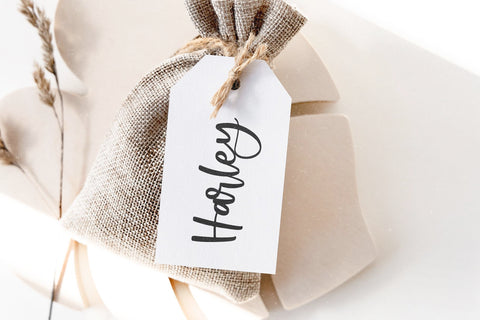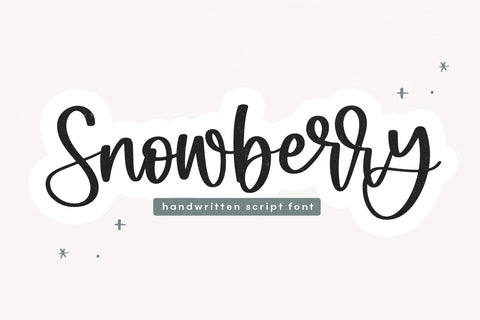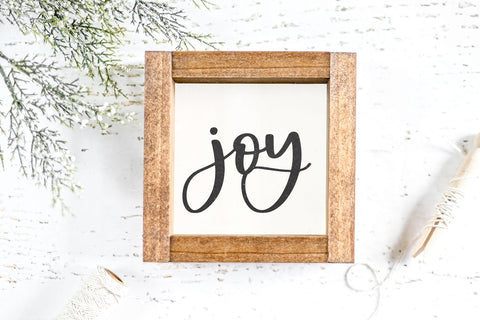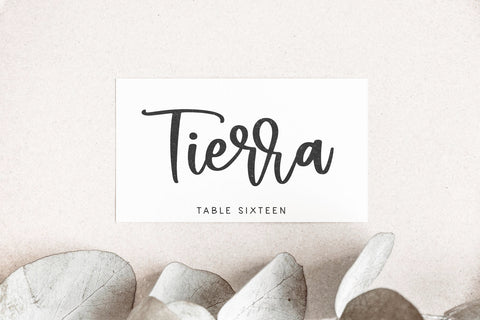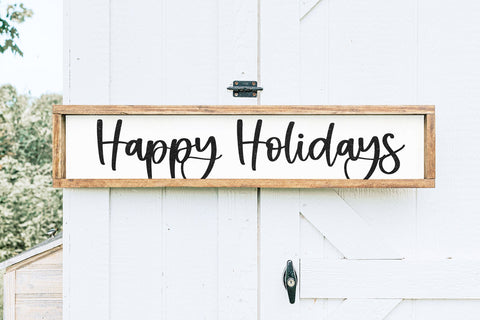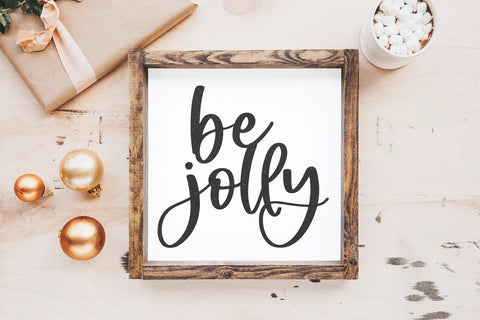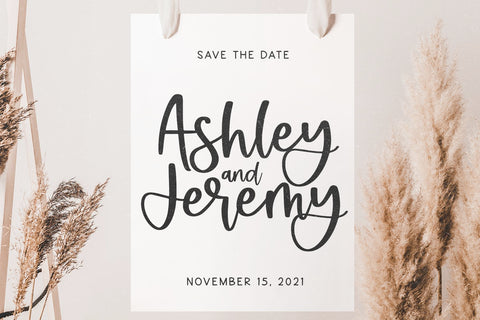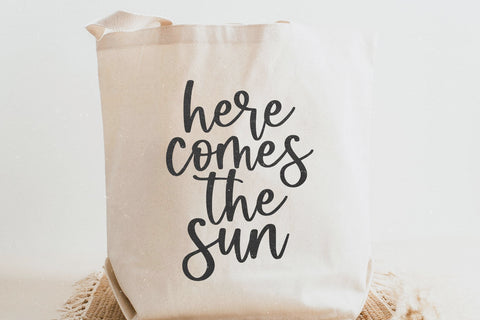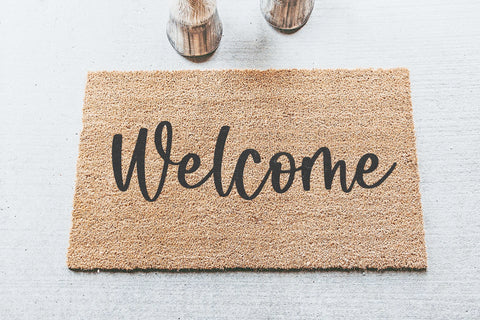
Snowberry - Bouncy Handwritten Script Font
Snowberry is a bouncy script font!
This font is perfect for all of your craft projects, svg designs, farmhouse decor, christmas projects, shirts, stickers and more!